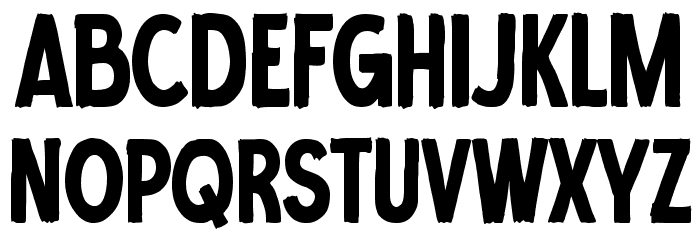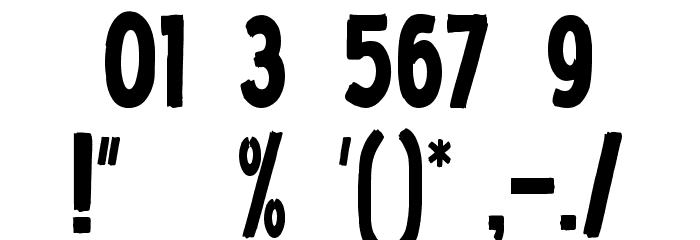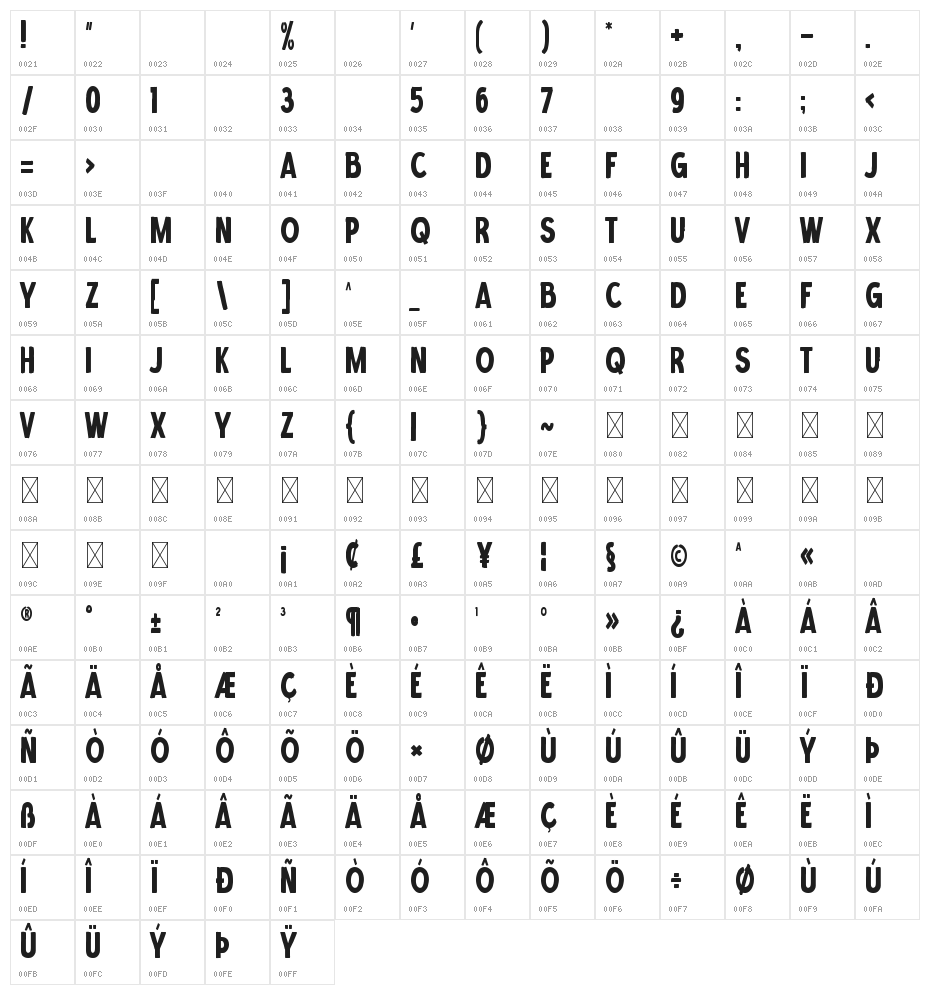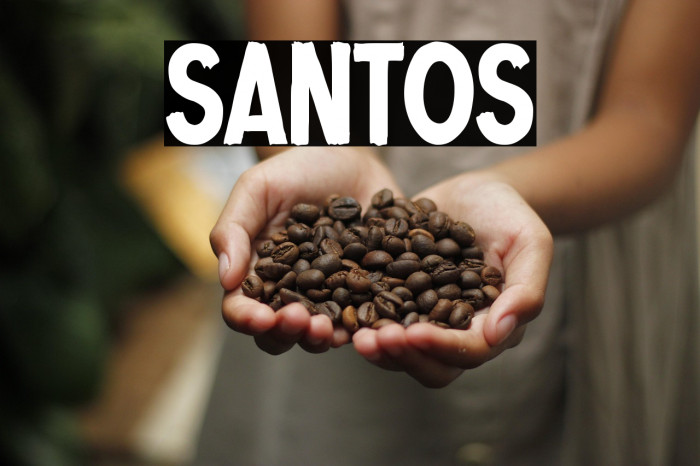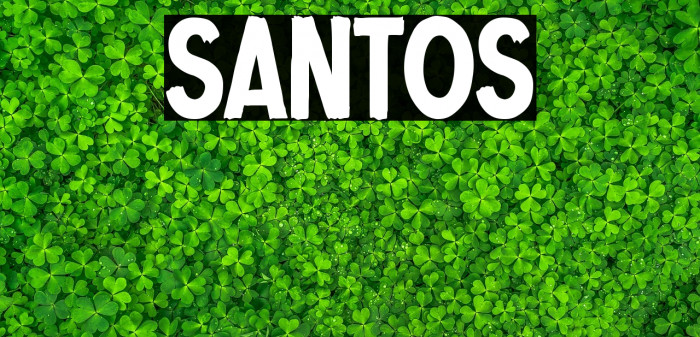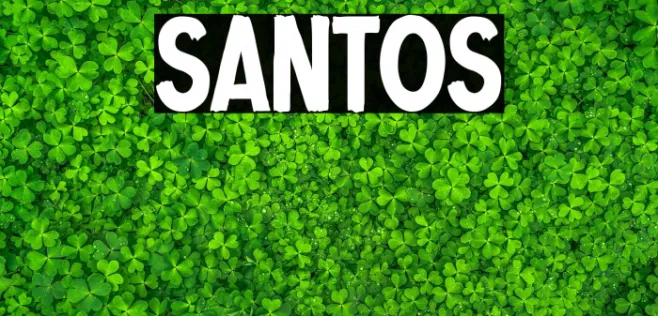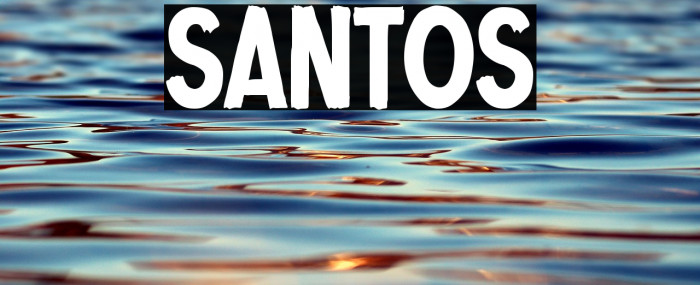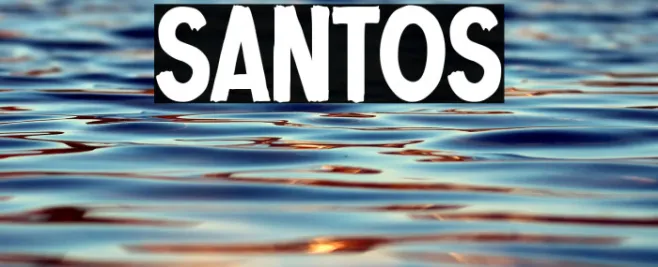
Santos Font
This font features a bold and impactful design with a strong presence, ideal for making statements. The characters are crafted with a slightly rough, hand-drawn appearance, adding a touch of authenticity and personality. The uppercase letters are prominent and assertive, while the numbers and special characters maintain the same boldness, ensuring consistency across all text. The font's style is reminiscent of vintage signage or posters, making it suitable for projects that require a retro or handcrafted feel. Its thick strokes and uniform width contribute to its readability and versatility in various design contexts.
A bold, hand-drawn font with a vintage, impactful style.
- Font: Santos
- Proposed Projects: Ideal for posters, branding, headlines, and any design needing a bold, vintage touch.
- Overall Style: Vintage